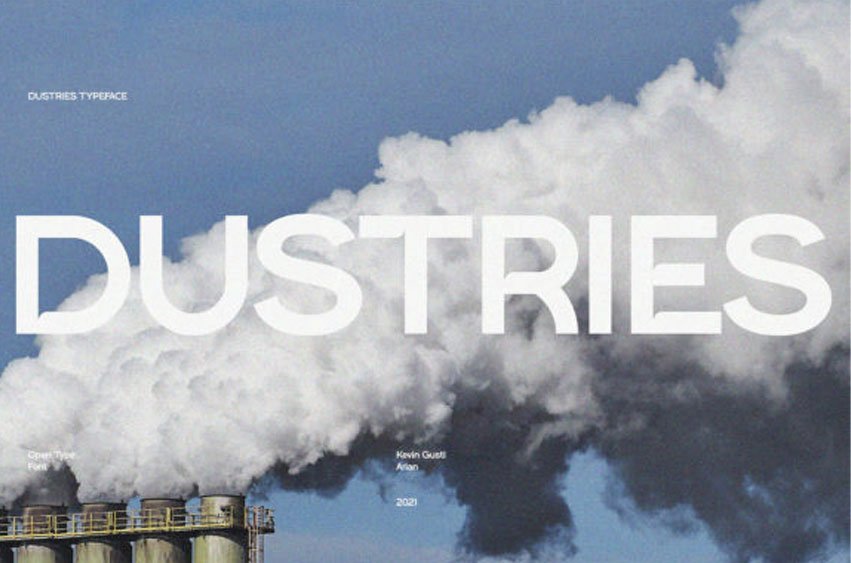
Dustries Font
Dustries Font is a bold and cool display font.
This font is ideal for writing web designs, business cards, or pretty much anything else that requires a unique touch.